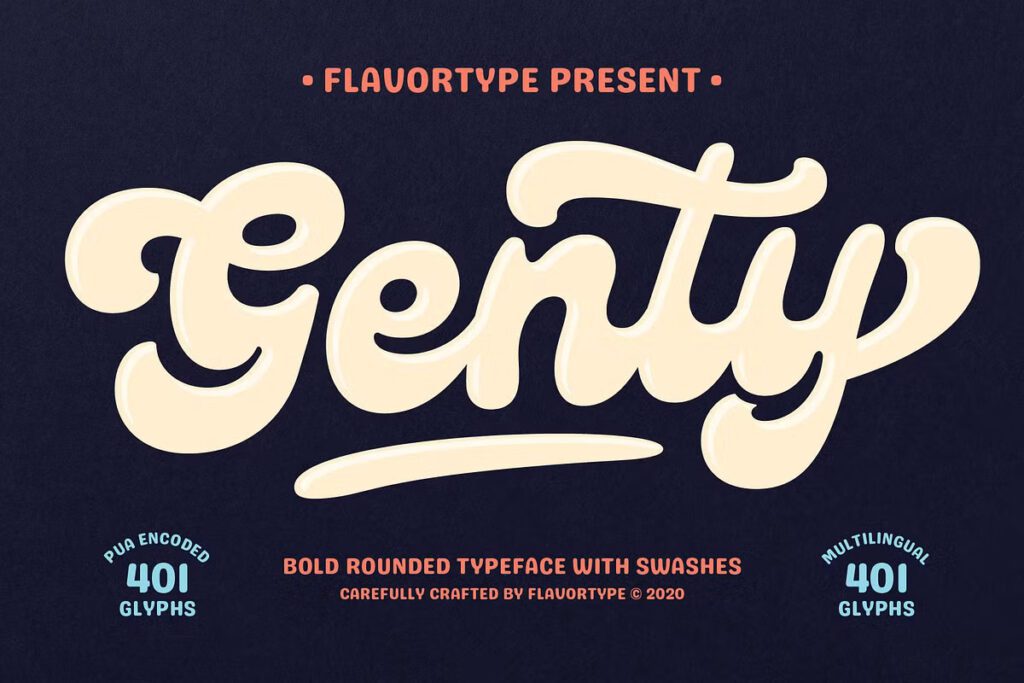
Genty Bold Rounded Typeface: Fun, Versatile, and Trendy
When it comes to choosing a typeface that blends boldness with a fun, playful design, the Genty Bold Rounded Typeface is the ideal pick. Crafted with attention to detail, this unique typeface offers a modern, trendy look that works across various design projects. Whether you’re creating logos, headers, posters, or social media content, Genty can elevate your design with its vibrant, bold appearance.
What Makes Genty Bold Rounded Typeface Special?
The Genty Typeface isn’t just another bold font—it’s a delightful fusion of charm and versatility, combining the best elements from Budge and Glaw, two successful fonts from Flavortype. Here are some features that make Genty stand out:
Bold & Rounded Design:Genty offers a bold, rounded structure that gives a friendly and approachable look to your designs. It’s ideal for projects that need a vibrant, fun, and cute aesthetic.
Tons of OpenType Features:Genty is packed with OpenType features like beautiful swashes, contextual alternates, and stylistic sets with up to 15 alternates. It also includes ligatures, ascender and descender swashes, and uppercase swashes to enhance creativity.
Complete Font Pair:Genty doesn’t just stop at bold rounded typefaces. It comes with a complementary Sans Serif font, making it a versatile choice for cohesive design work across branding, packaging, and more.
How to Use Genty Bold Rounded Typeface in Your Designs
Genty’s fun and bold aesthetic make it an excellent choice for a wide range of projects:
Branding & Logos: The typeface’s bold, friendly look makes it perfect for creating memorable logos and brand identities.
Posters & Packaging: Genty’s rounded and playful design adds a creative flair to posters, magazine covers, and product packaging.
Social Media Graphics: With its included stickers and story templates, Genty makes designing engaging and trendy Instagram stories easy.
Why Choose Genty Typeface?
Here are just a few reasons to add Genty to your design toolkit:
Versatility: Whether you’re working on formal branding or playful social media content, Genty can adapt to your needs.
Creative Freedom: With numerous swashes, stylistic alternates, and ligatures, you have endless possibilities to customize your design.